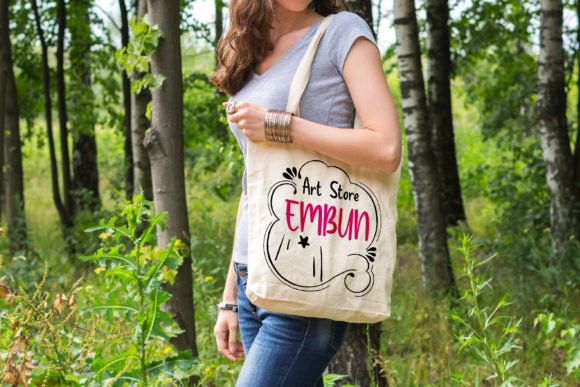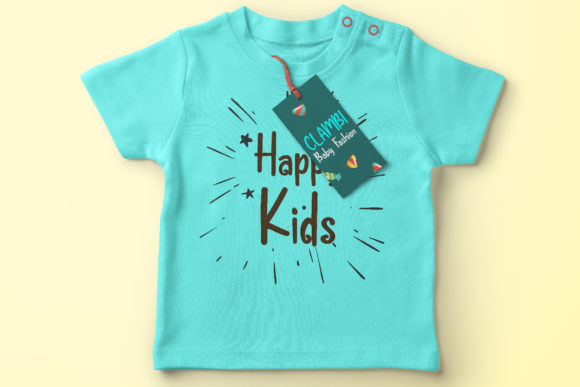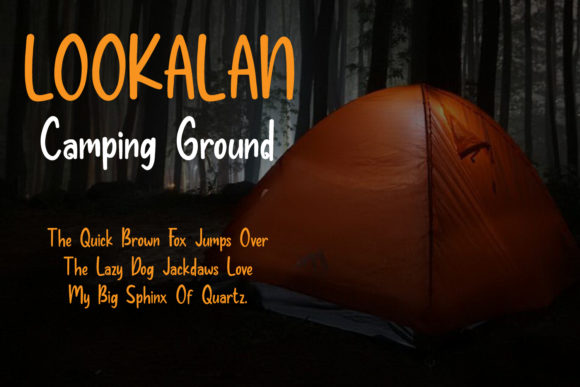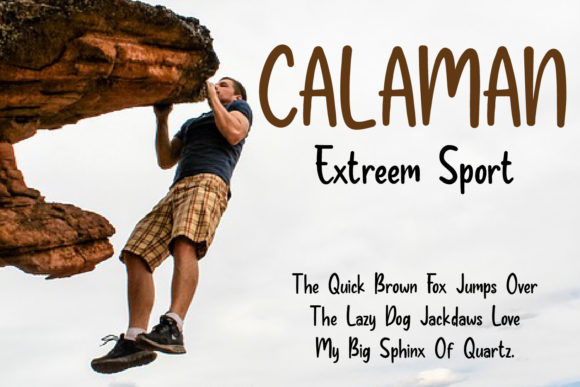
Introduction to Looktown Font
Looktown is a playful and friendly handwritten font.
Fall in love with its incredibly versatile style and use it to create spectacular designs .
Key Features of Looktown Font
Why Choose Looktown Font?